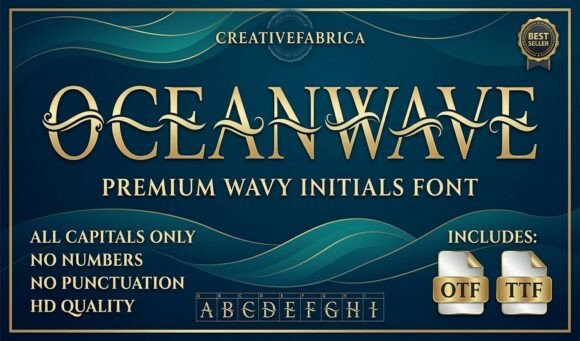
Ocean Wave Monogram Font – Free Download
Introduction to Ocean Wave Monogram Font
Introducing Ocean Wave Monogram- An Elegant Split-Letter Font Elevate your designs with Ocean Wave Monogram, a beautifully crafted, classic serif font featuring a sweeping, elegant wave swash that flows seamlessly through the center of every letter.
This highly decorative font is specifically designed for creating stunning initials, elegant monograms, and striking standalone lettercards The nautical, flowing cut-out effect makes it absolutely perfect for coastal brands, beach-themed weddings, luxury logos, personalized apparel, and bespoke stationery.
Key Features of Ocean Wave Monogram Font
Why Choose Ocean Wave Monogram Font?